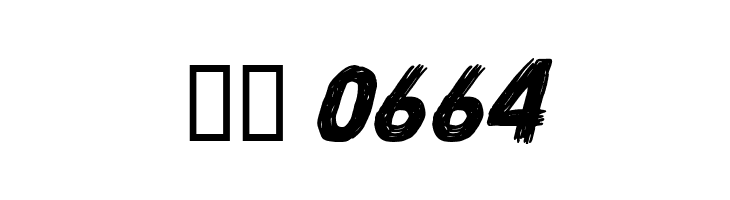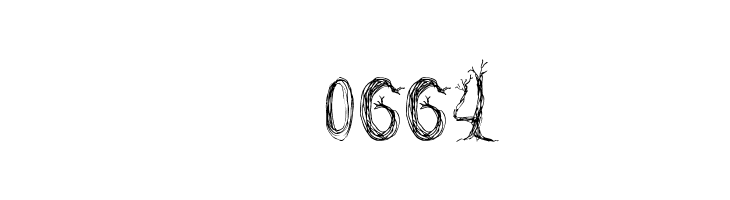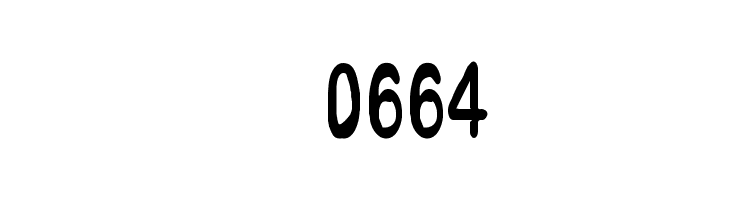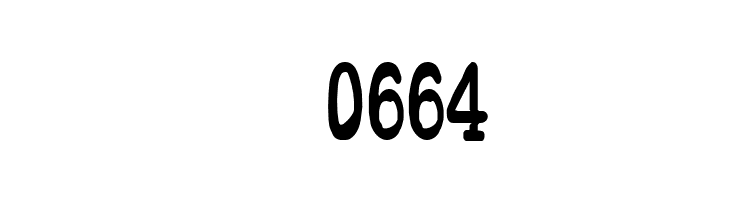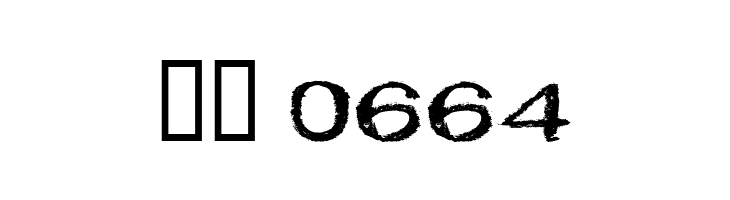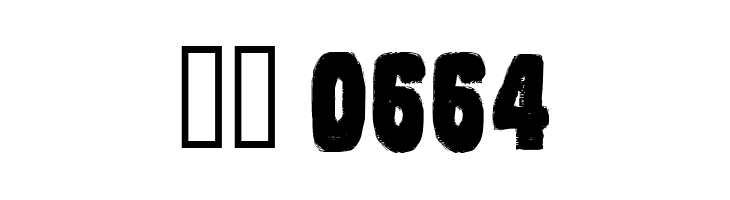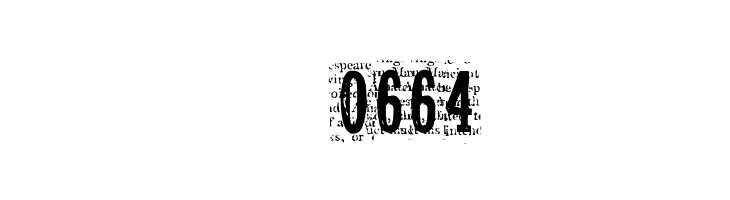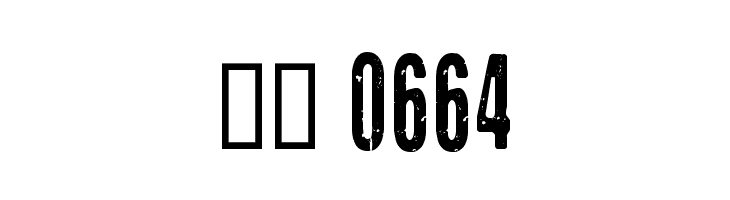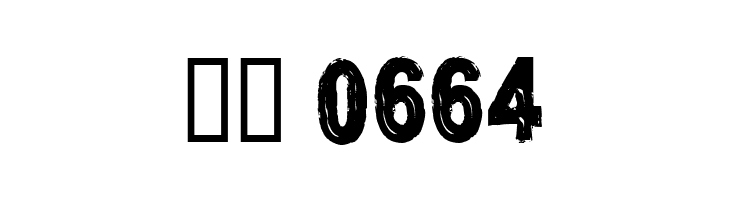
A dynamic, brush-like font with expressive, hand-drawn strokes.
A playful, bold cartoon-style font with thick outlines and a hand-drawn look.
A textured, hand-drawn font with a bold and artistic style.
A geometric, Art Deco-inspired font with bold lines and a modern aesthetic.
A bold, rounded font with a playful and structured style.
A bold serif font with strong strokes and a classic, vintage appeal.
A bold, brush-like font with a hand-drawn, expressive style.
A modern, sleek font with elongated strokes and subtle curves.
Bold, outlined font with a classic varsity style.
A bold, dripping font perfect for horror-themed designs.
A bold, decorative font with a stitched outline effect, perfect for creative projects.
A playful, cartoonish font with bold, textured letters.
A bold, decorative font with vintage, distressed detailing.
A vintage, distressed font with bold, prominent characters ideal for nostalgic designs.
A bold, decorative font with intricate, swirling patterns inside each character.
A bold, distressed font with a dripping effect, perfect for horror themes.
A bold, distressed font ideal for spooky, horror-themed designs.
A bold, dripping font perfect for horror-themed designs.
A bold, distressed font with a vintage, textured appearance.
A classic script font with elegant, fluid characters and a vintage charm.
A bold, textured font with a distressed, handcrafted appearance.
A bold, distressed font with a vintage, industrial aesthetic.
A bold, vintage-style font with a decorative, distressed texture.
A vintage-inspired font with a slanted, elegant style and decorative elements.
A bold, geometric font with a vintage, distressed texture.
A decorative font with characters resembling intertwined branches or roots.